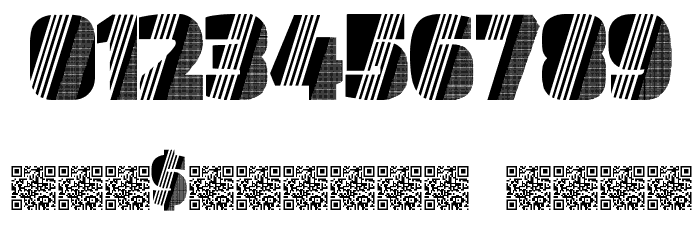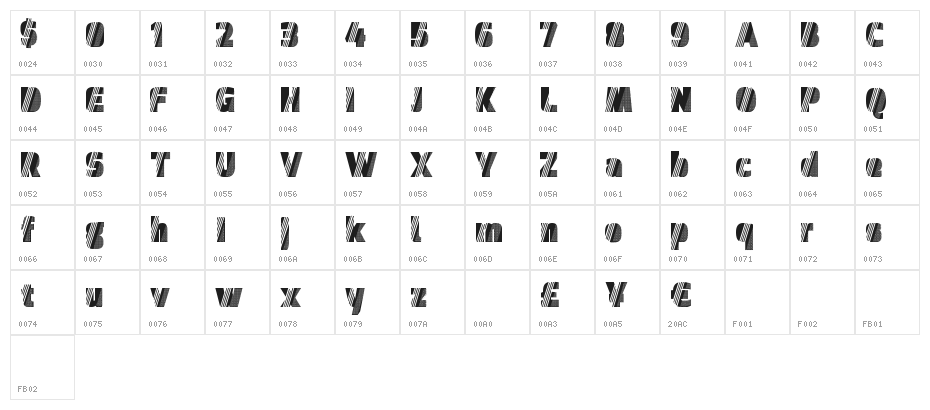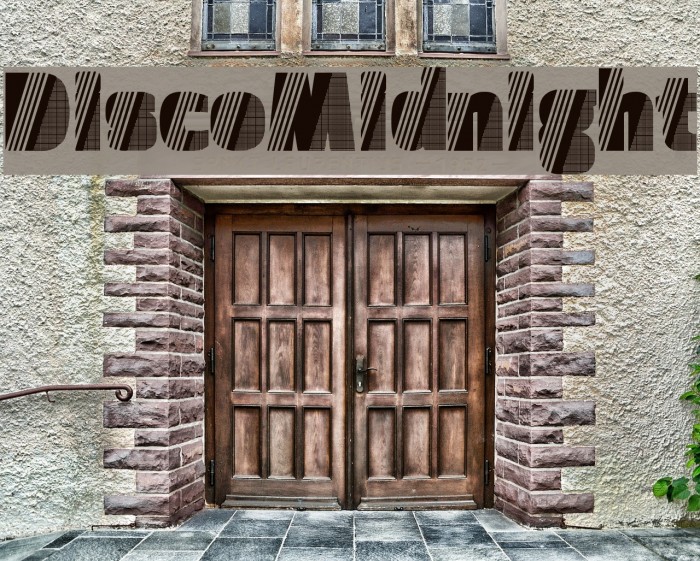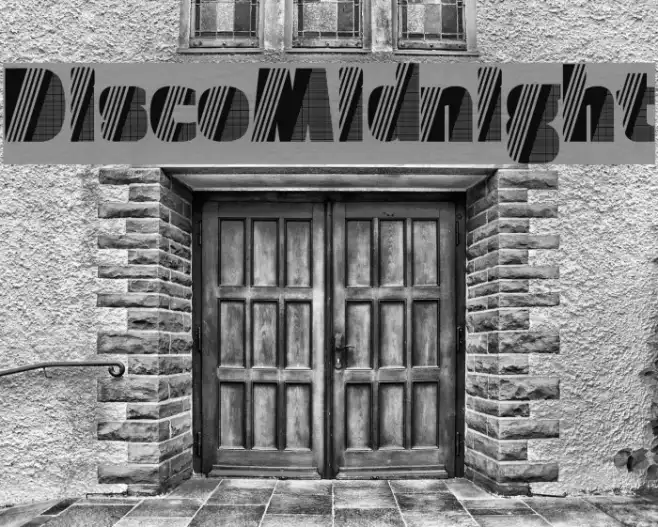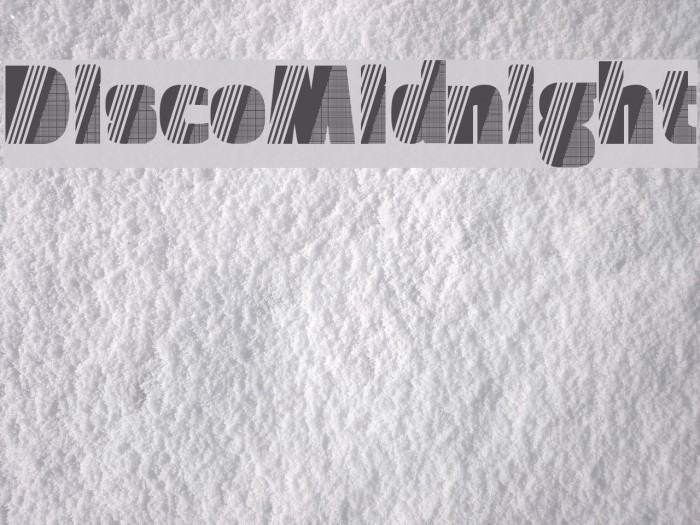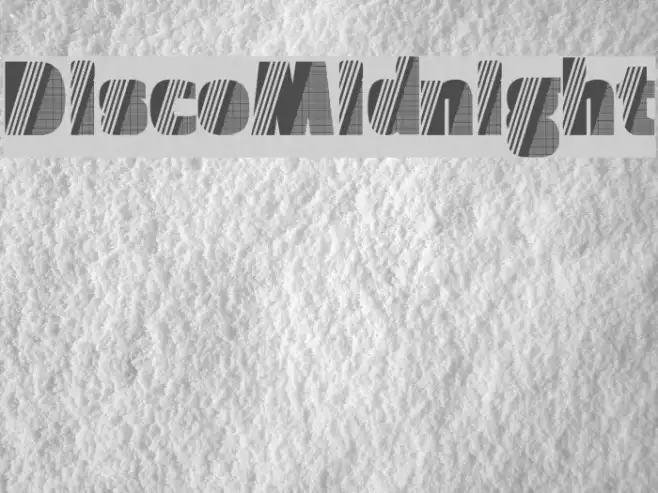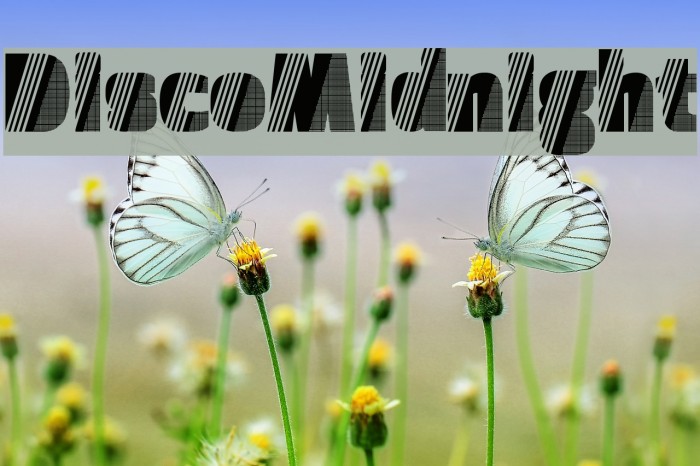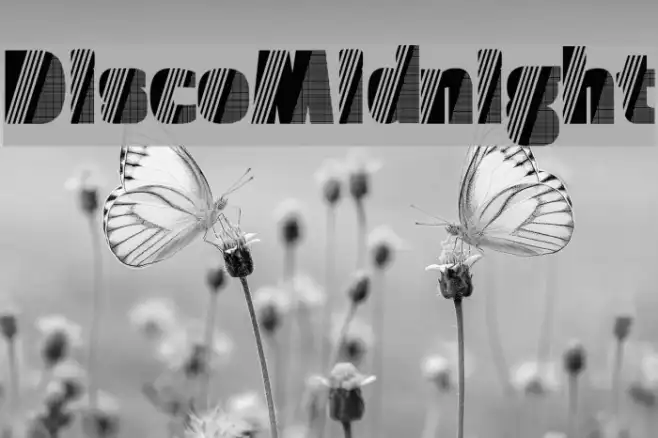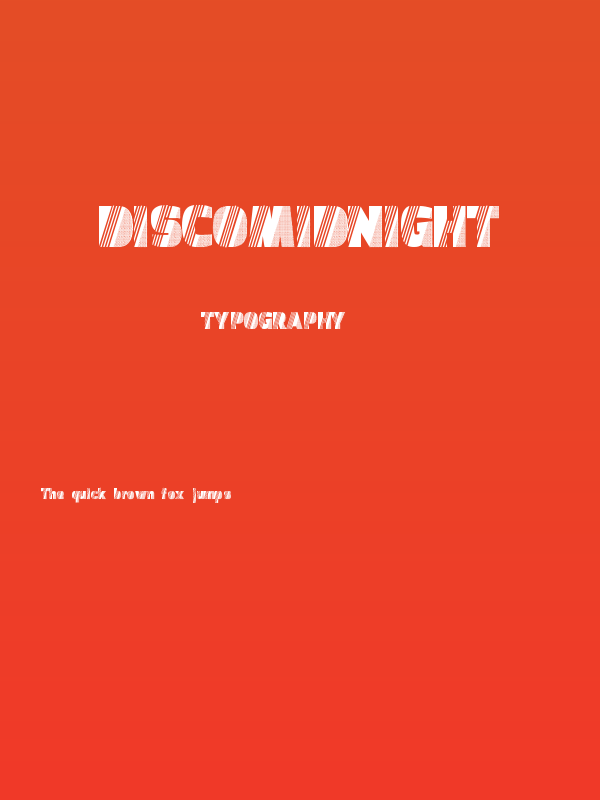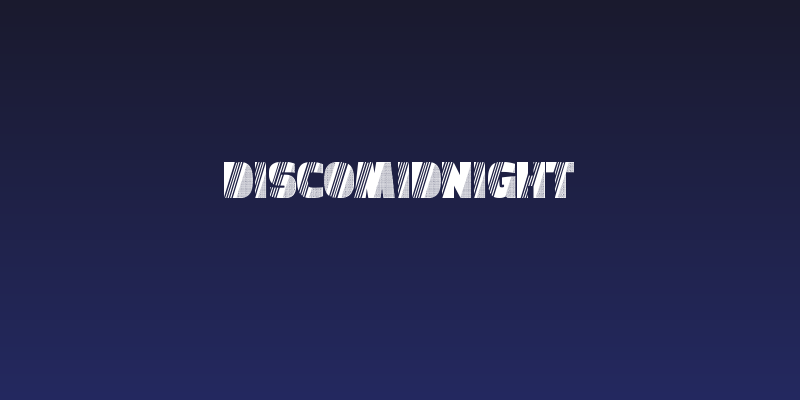
DiscoMidnight Font
DiscoMidnight Description
This font features a bold and dynamic design with a distinct striped pattern running through each character, creating a sense of movement and rhythm. The letters are wide and have a strong presence, making them ideal for attention-grabbing headlines or titles. The combination of solid and striped areas within each character adds a unique visual texture, reminiscent of a retro or disco aesthetic. The font maintains a consistent weight throughout, ensuring readability while still offering a playful and energetic vibe. Its geometric shapes and clean lines contribute to a modern yet nostalgic feel.
| Overall Style | Retro, Modern |
| Use Case | Headlines, Posters, Logos |
| Proposed Projects | Ideal for music event posters, retro-themed branding, or any project requiring a bold, eye-catching typeface. |